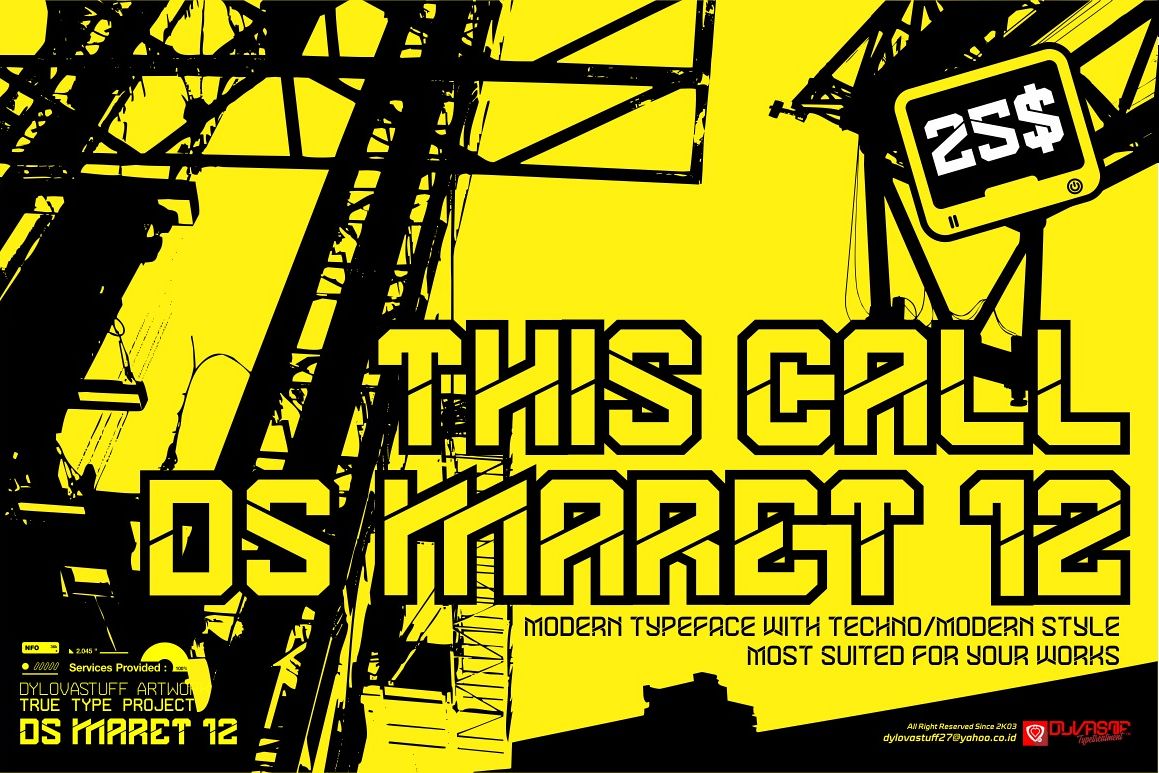
DS MARET 12
DS MARET 12.
This call DS MARET`12
A modern typeface with techno / modern style most suited for your works.
DS MARET`12 comes including uppercase and lowercase characters and numerals, it's perfect for creating a Modern style artwork,TYPOGRAPHY, Headline, or Logotype and t shirt/apparel design this really great font for your band, company, label, clothing company and others!